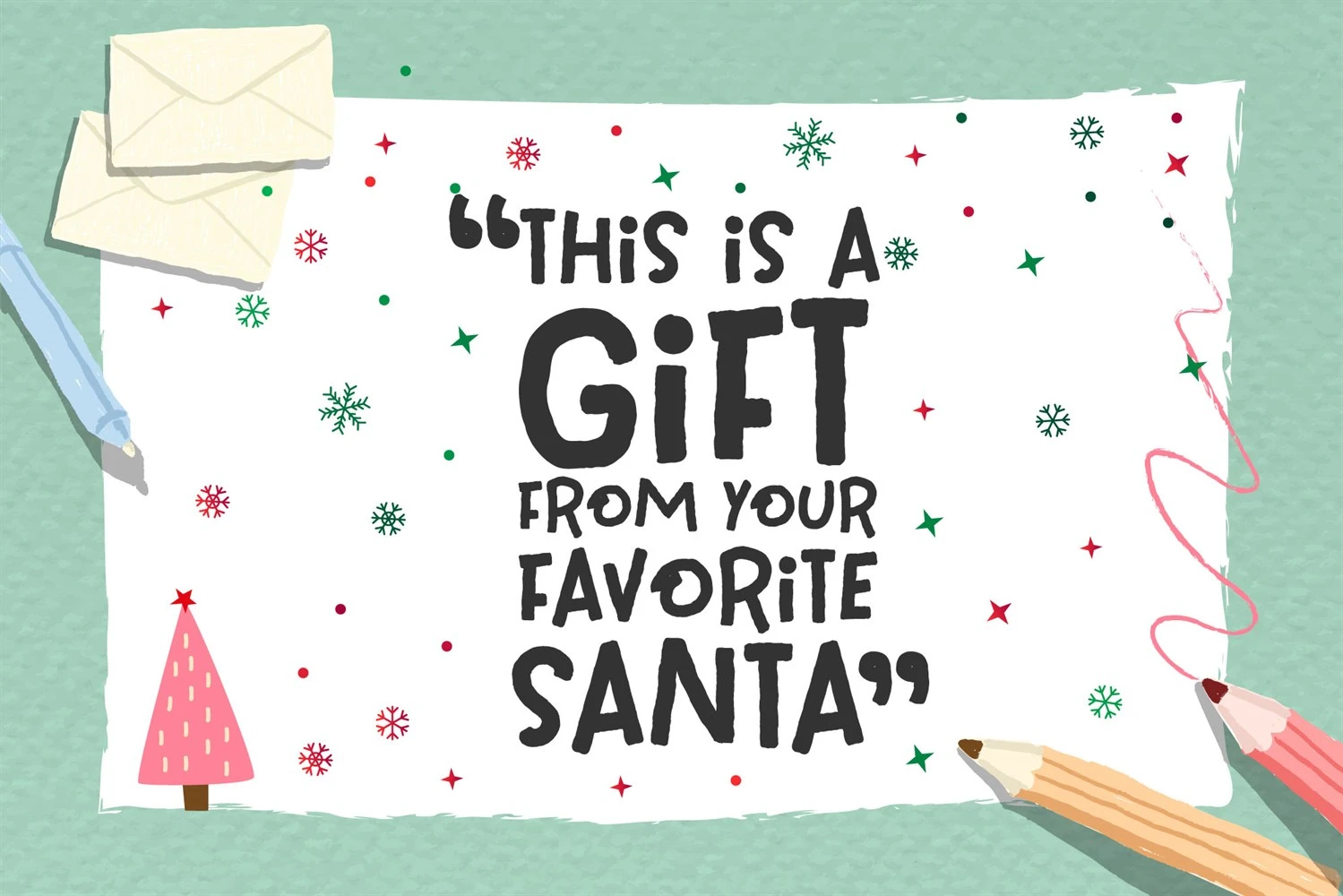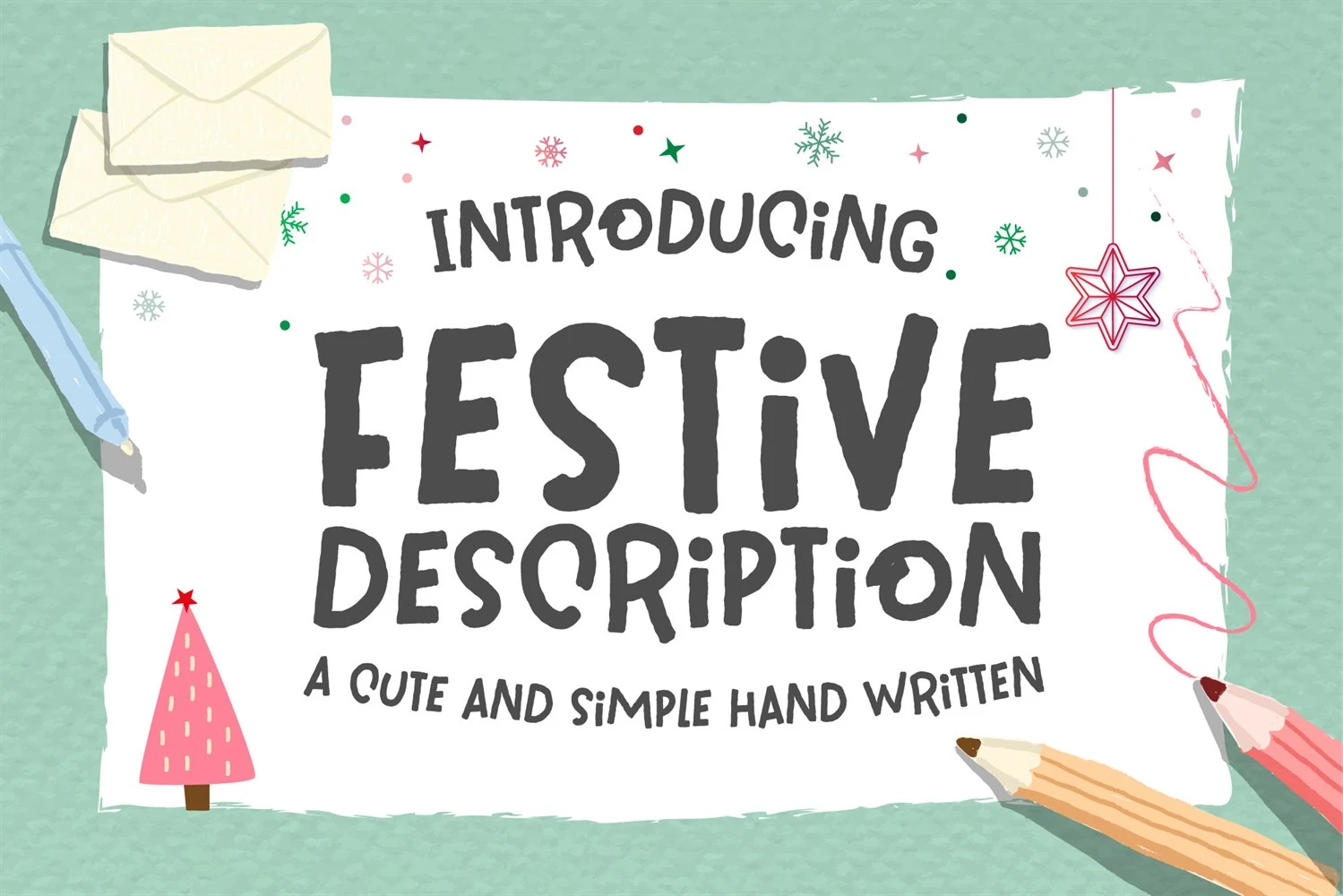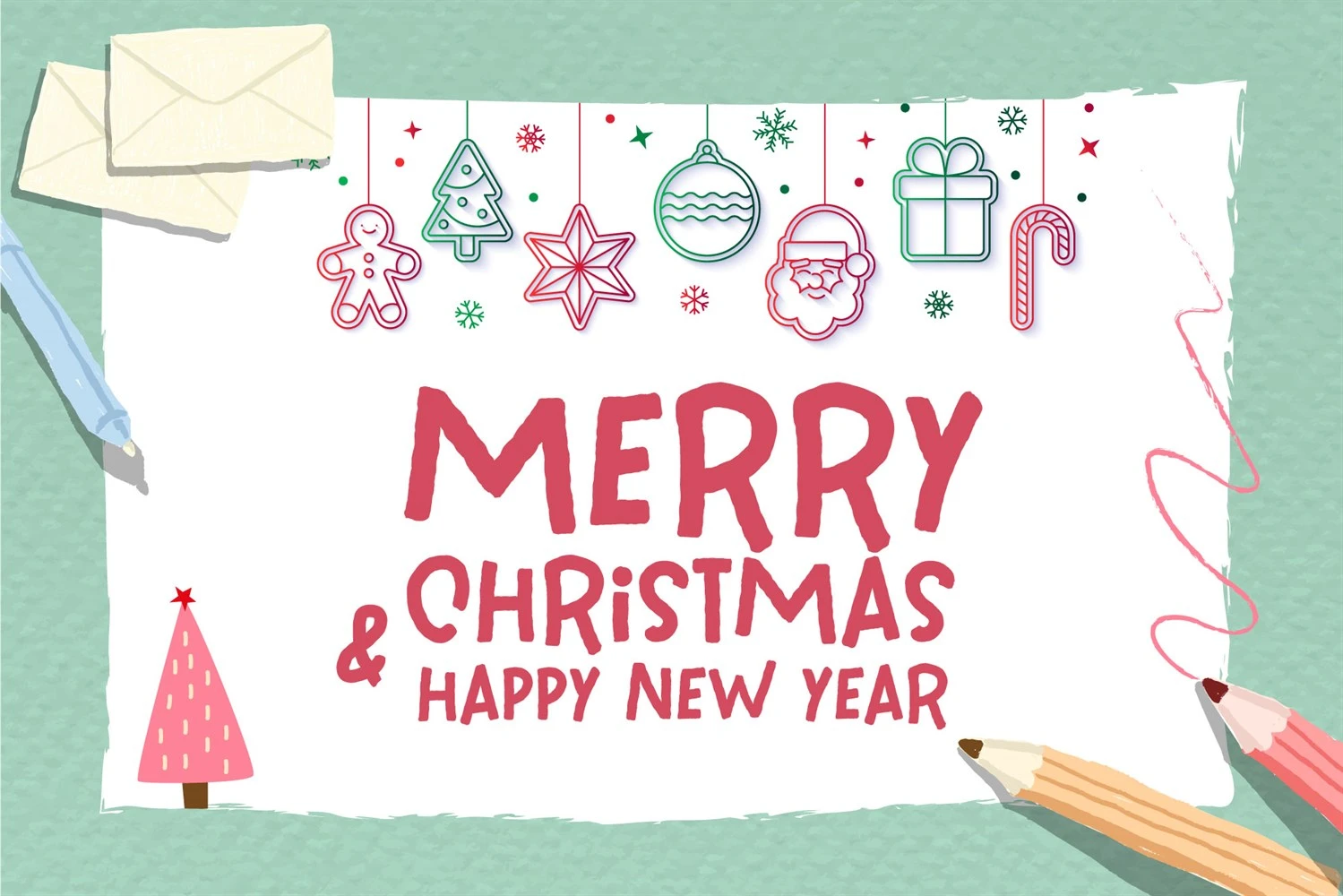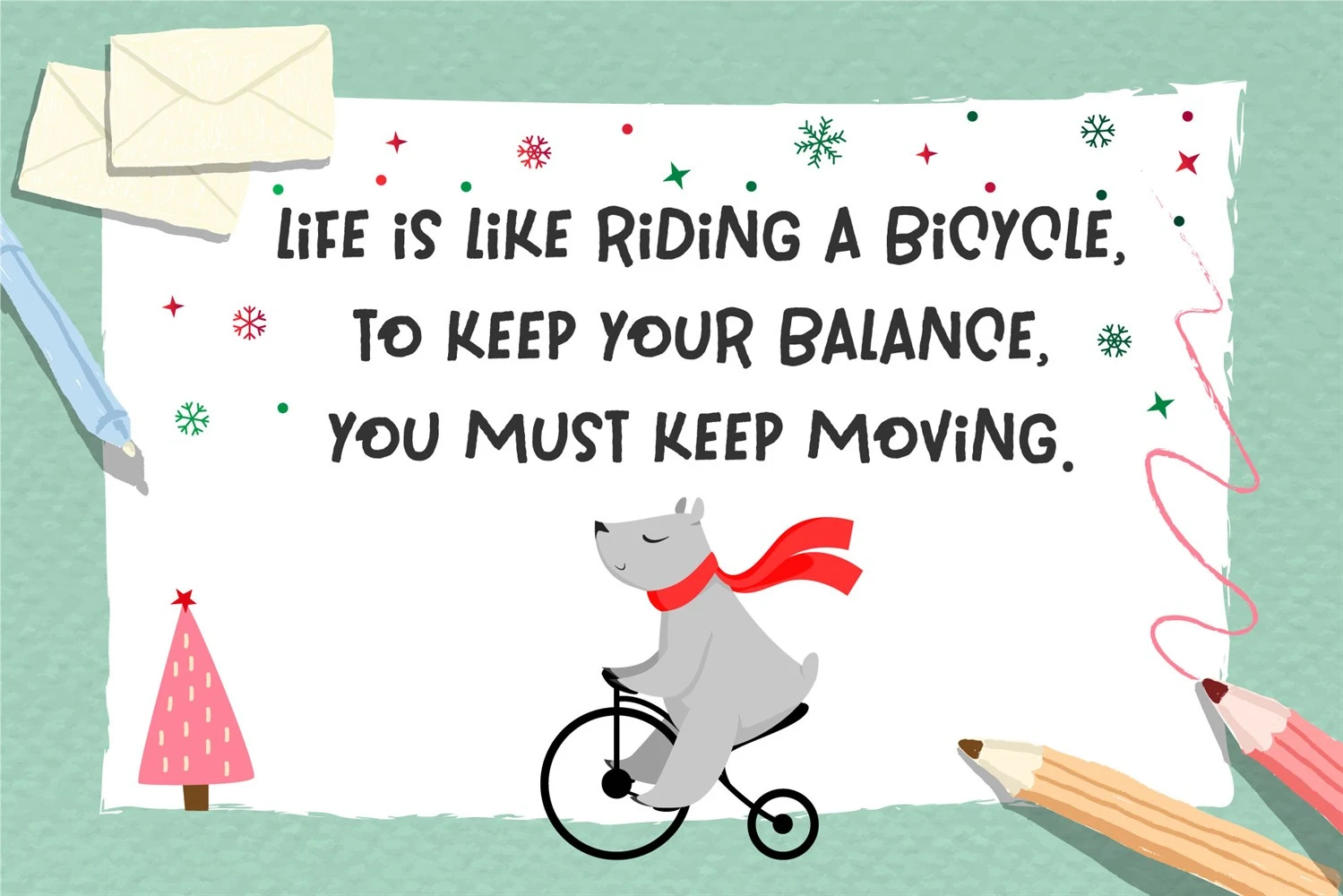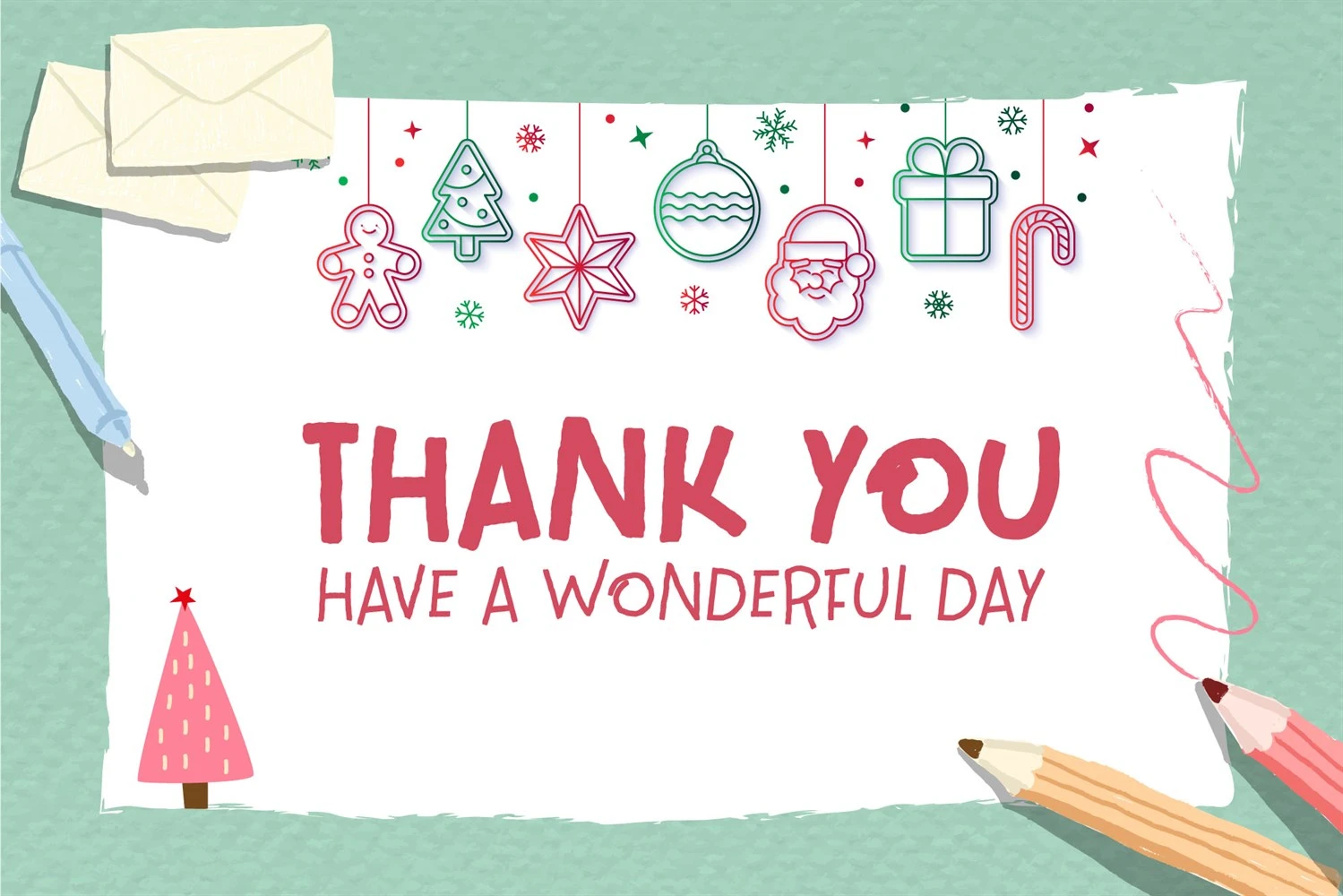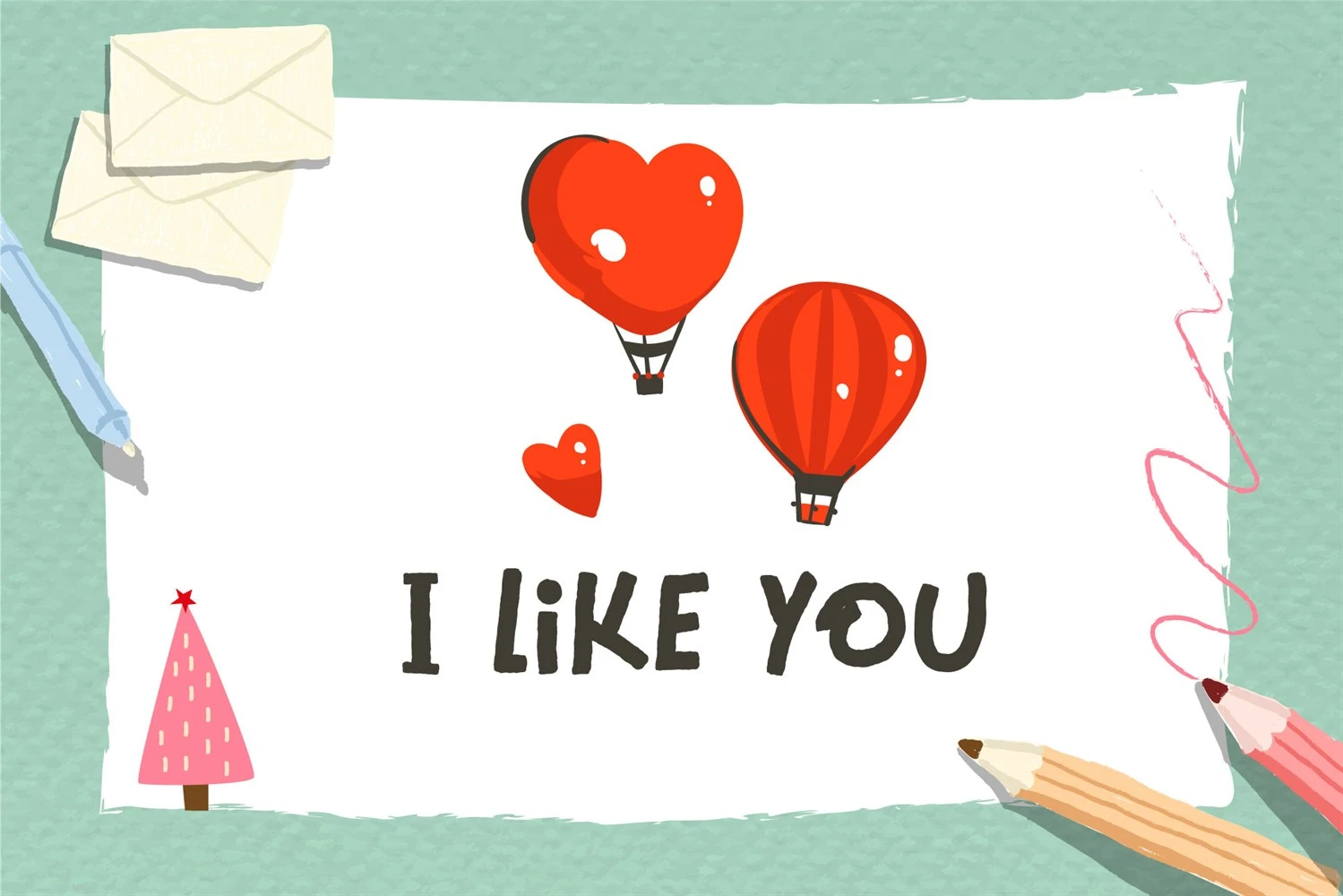
Festive Description Font is a charming and playful handwritten font perfect for adding a touch of authenticity to your designs. Whether you're creating chalkboard quotes, teaching materials, or any other project that needs a handwritten feel, this font is sure to delight. With its cute and simple letterforms, Festive Description brings a personal and realistic touch to your work. Get ready to infuse your designs with warmth and character with this delightful font.
Festive Description Font